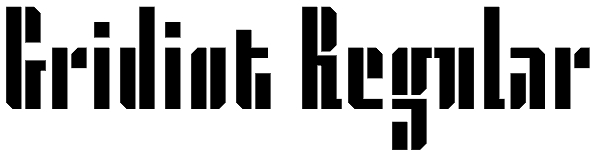
Gridiot
Gridiot is a constructed, semi-serif, two-weight stencil family that expands an approach taken by Josef Albers. Intended for display or headline setting, it features chamfered or bevel-cut corners, used instead of curves. The individual letter...
Gridiot Chunky
Gridiot Regular